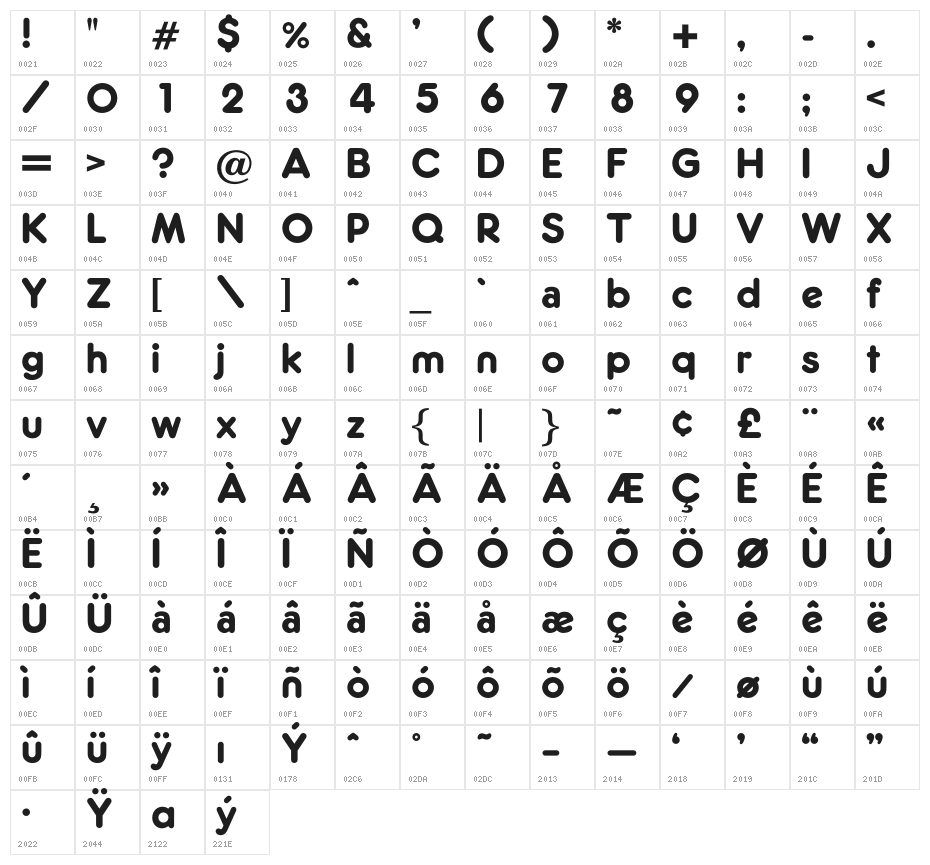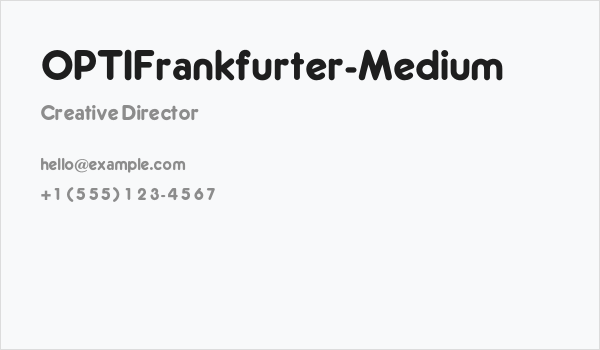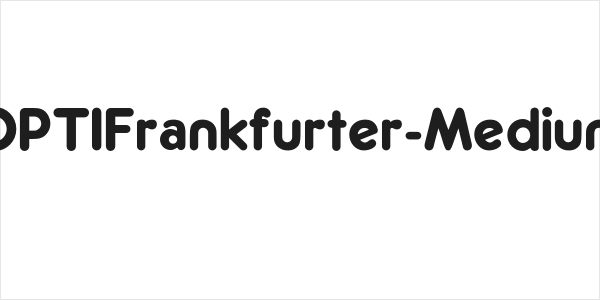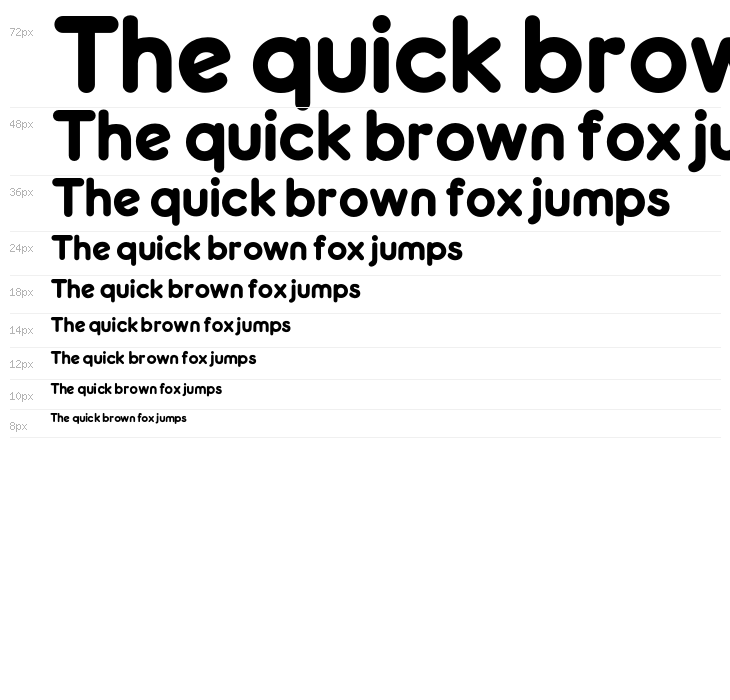
OPTIFrankfurter-Medium Font
OPTIFrankfurter-Medium Description
This font features a bold, rounded style with smooth curves and a playful appearance. The characters are evenly weighted, giving it a consistent and cohesive look. The uppercase and lowercase letters maintain a uniform width, contributing to its balanced design. The numbers and special characters are designed to match the overall aesthetic, making it versatile for various uses. Its rounded edges and thick strokes give it a friendly and approachable feel, suitable for both digital and print media.
| Proposed Projects | Ideal for children's books, playful branding, posters, and social media graphics. |